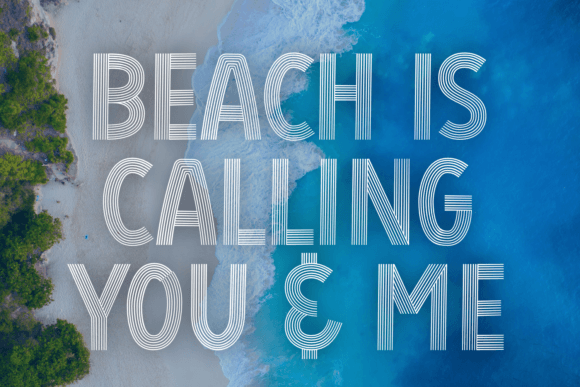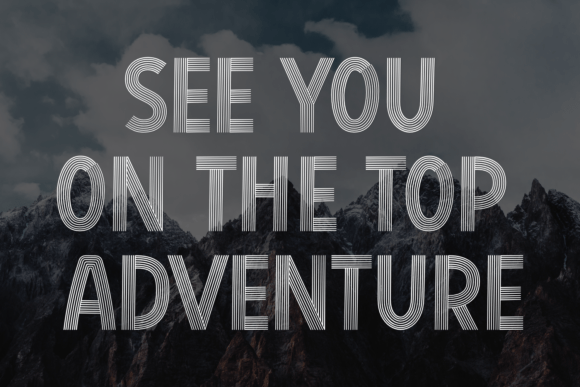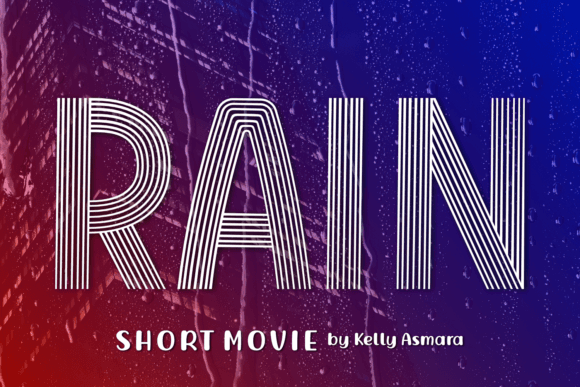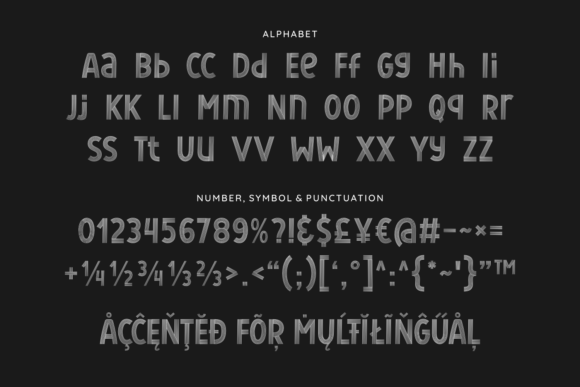
When Inspiration Strikes
There’s that moment when you’re working on a project, and suddenly a spark of creativity hits you. Your mind starts racing with ideas, and you can’t wait to bring them to life. That’s when the right tools come into play, and for designers, the right font can make all the difference.
Enter Any Good Font, a cool, retro, multi-line display font that’s perfect for adding a unique touch to your designs. Its natural and unique style makes it incredibly fitting to a wide range of projects, from advertisements to posters, and everything in between.
With Any Good Font, the possibilities are endless. Whether you’re a seasoned designer or just starting out, this versatile font is sure to inspire your creativity and help you bring your ideas to life.
Key Features of “Any Good Font”
• Font Size: The font is designed to be highly legible at various font sizes, ranging from 8pt to 24pt, making it ideal for both body text and headings.
• Resolution Independence: Any Good Font is designed to be resolution-independent, ensuring that it looks crisp and clear at any resolution, from low-resolution screens to high-resolution printers.
• Unique Characteristics: The font features a unique blend of modern and classic elements, with subtle flair and texture, making it perfect for creative projects and designs that require a touch of sophistication.
• Weight and Style Options: The font comes in 6 weights (Light, Regular, Medium, Bold, Heavy, Black) and 3 styles (Normal, Italic, Oblique), providing ample flexibility for designers to create a wide range of visual effects.
Designer Review: Any Good Font
Overall, I’d say Any Good Font has some great qualities that make it a solid choice for designers. Here are a few things that stand out: ✨
• High Legibility**: The font is super clear and easy to read, even at smaller sizes.
• Good Balance**: The font’s x-height and line spacing are well-balanced, making it suitable for a wide range of applications.
• Stylish Flair**: The font has a unique touch that sets it apart from more generic sans-serif fonts.
However, I do have some concerns about the font’s limitations: ⚠️
• Lack of Support for Asian Languages**: Any Good Font doesn’t have the necessary glyphs to support languages like Chinese or Japanese.
• Narrow Character Set**: The font’s character set is limited, which might be a problem for designers who need to use specialized characters.
Overall, I’d say Any Good Font is a decent choice for designers who need a clean, modern font for Western-language projects. However, it’s not ideal for projects that require support for multiple languages or specialized characters.
Any Good Font is ideal for:
• Creative projects, such as infographics and posters
• Business presentations and reports
• Editorial and publishing materials